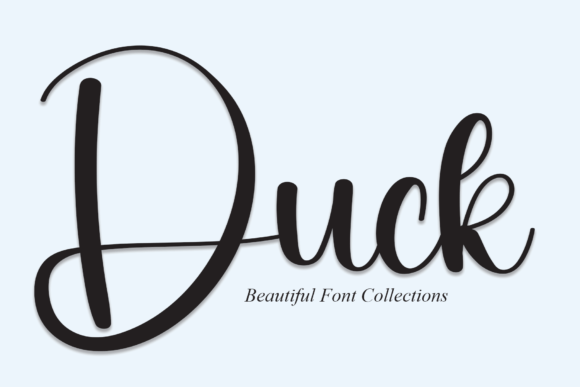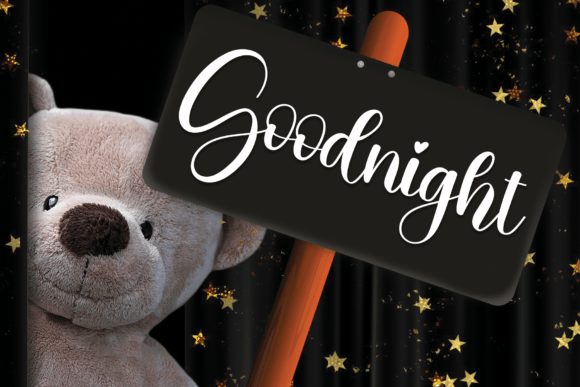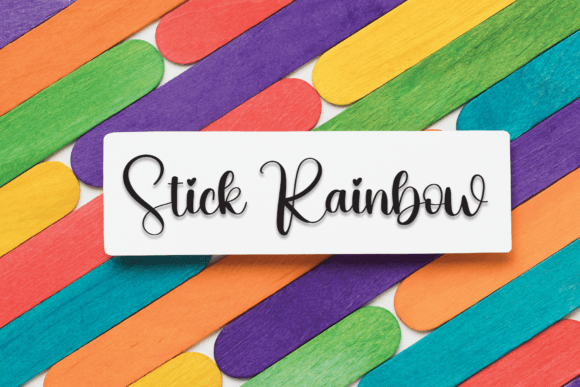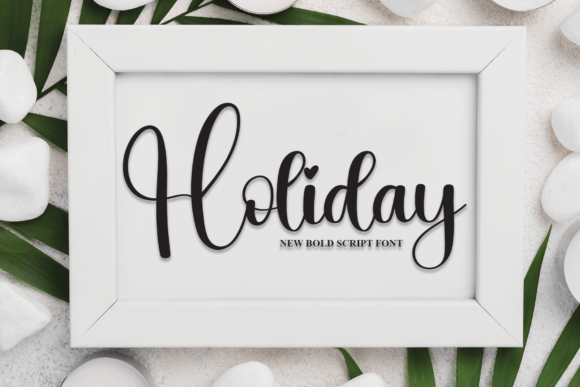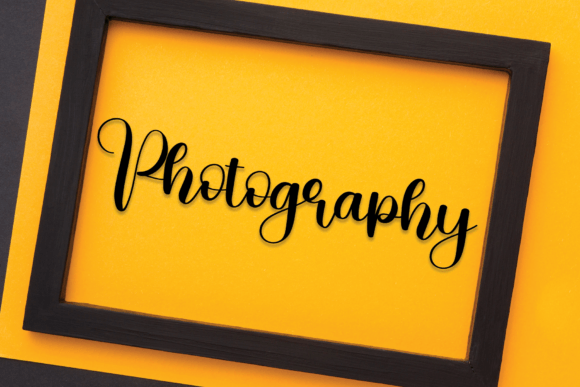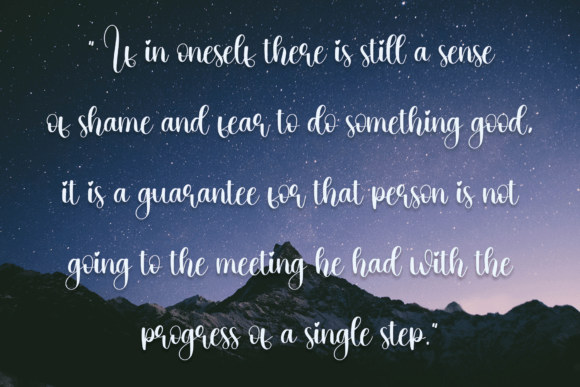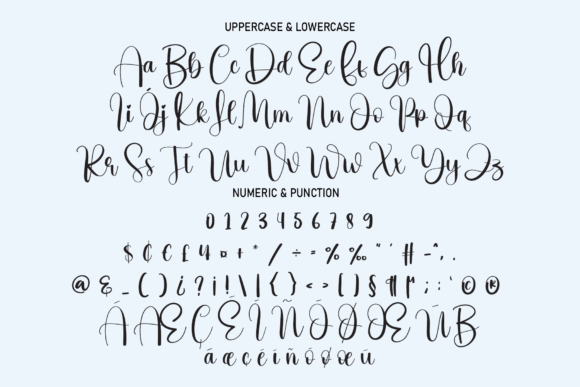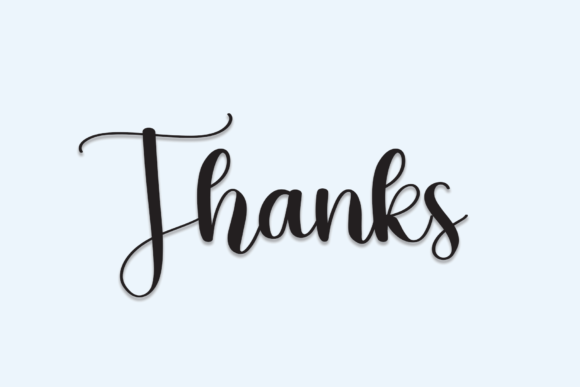
Duck Font
The Duck Font Download is a fun and joyful handwritten script designed to bring creativity, charm, and friendliness to your projects. With its casual handwritten strokes and approachable style, Duck is versatile enough to be used for crafts, invitations, posters, branding, and even digital content. Its unique balance of playfulness and readability makes it an excellent addition to any designer’s toolkit.
A Joyful Handwritten Script with Playful Personality
Unlike ordinary fonts, the Duck script font combines smooth handwritten curves with a lighthearted design. As a result, it feels modern, friendly, and versatile, making it perfect for projects that need an uplifting handwritten touch.
Handwritten fonts always add emotion and warmth to personal stationery. The Duck Font is excellent for wedding invitations, thank you notes, birthday cards, and seasonal greetings. Moreover, its joyful rhythm ensures that every message feels heartfelt and authentic.
Branding and Logo Design with Duck Font
Typography is a key part of how a brand is perceived. The Duck handwritten font is a wonderful option for boutique logos, product packaging, and promotional campaigns. In addition, its joyful yet professional look makes brands feel approachable and creative.
Posters, Titles, and Creative Displays
The Duck Font Download adapts seamlessly to posters, magazine layouts, banners, and book covers. Therefore, it performs equally well in both small-scale and large-scale designs, always maintaining clarity and playfulness.
In today’s fast-moving digital space, fonts need to stand out while staying flexible. The Duck typeface integrates beautifully into Instagram posts, Pinterest graphics, YouTube thumbnails, and blogs. Its friendly handwritten strokes make online designs engaging and stylish.
Why Designers Choose Duck Typeface
Designers love fonts that bring life and usability to their projects. Many handwritten fonts are artistic but lose clarity, while the Duck handwritten script stays legible while keeping its fun personality. This balance makes it a dependable choice for professionals and hobbyists alike.
Add Joyful Energy to Your Projects Today